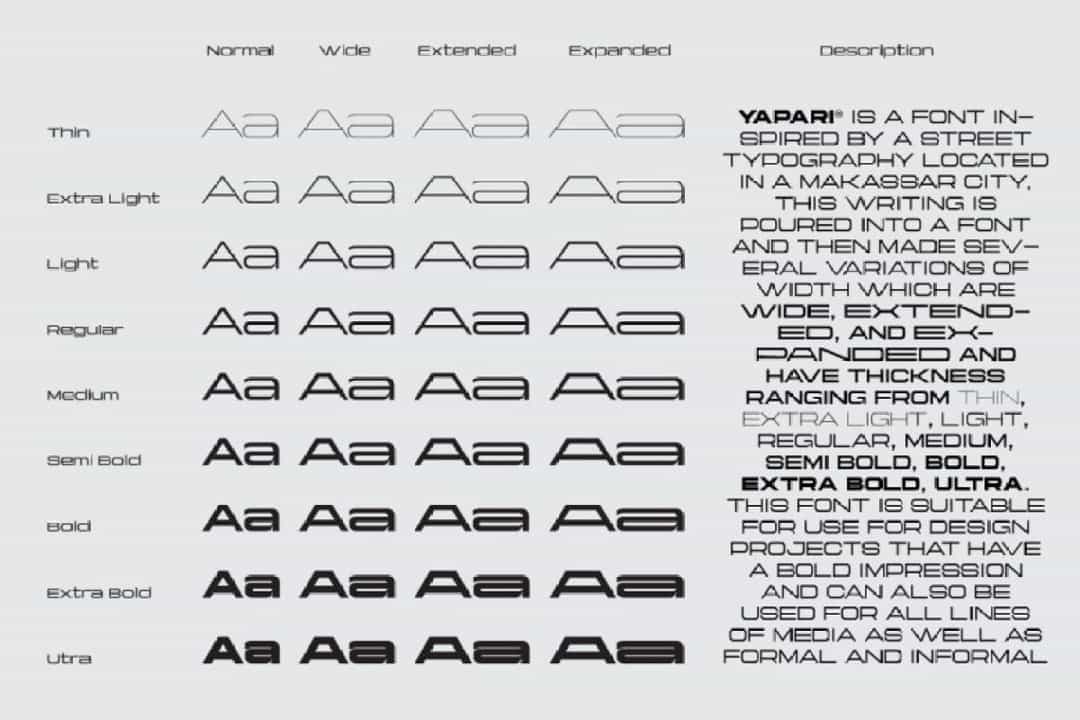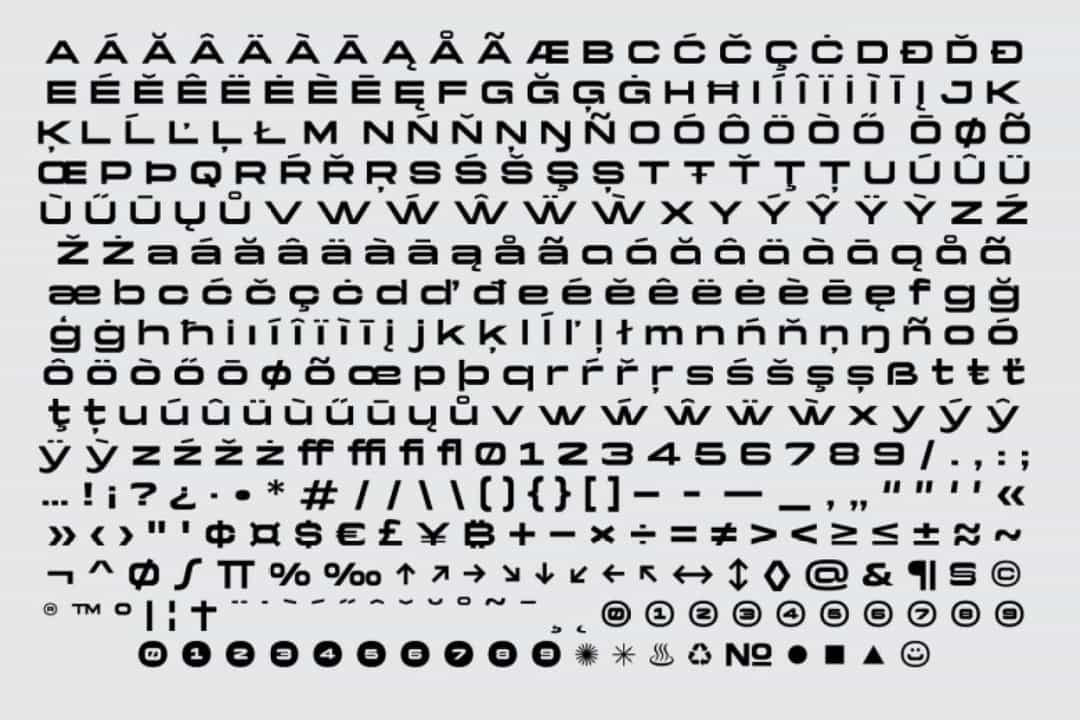
Yapari, It is an extended sans serif font inspired by street typography found in Makassar city. Written text was put into font form and later converted to various versions with 4 width and 9 weight options.